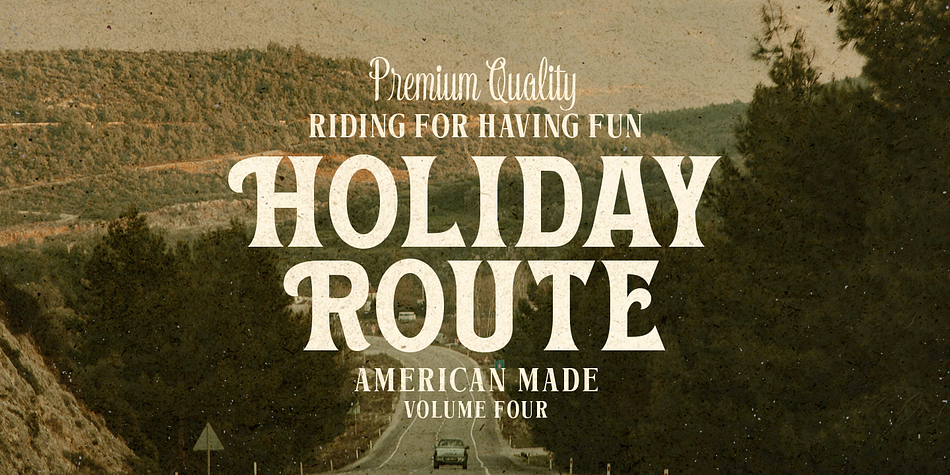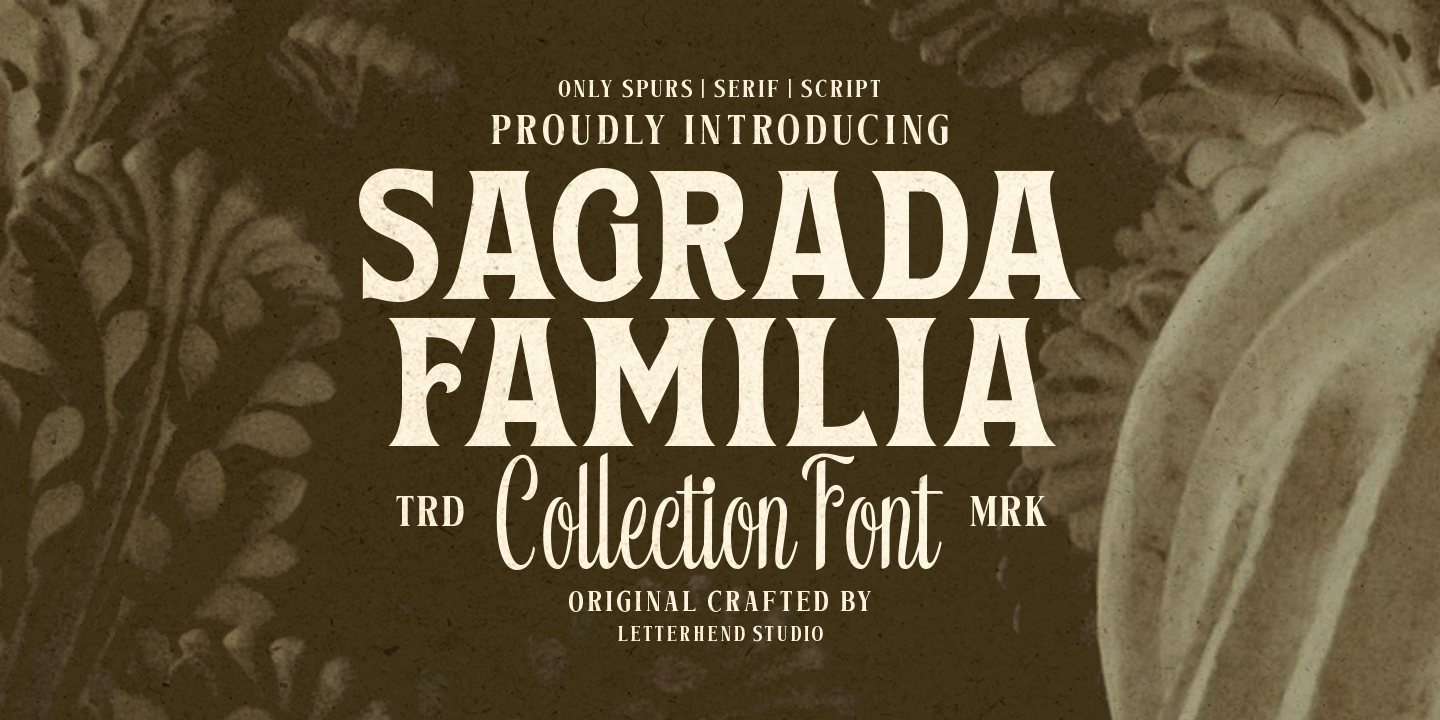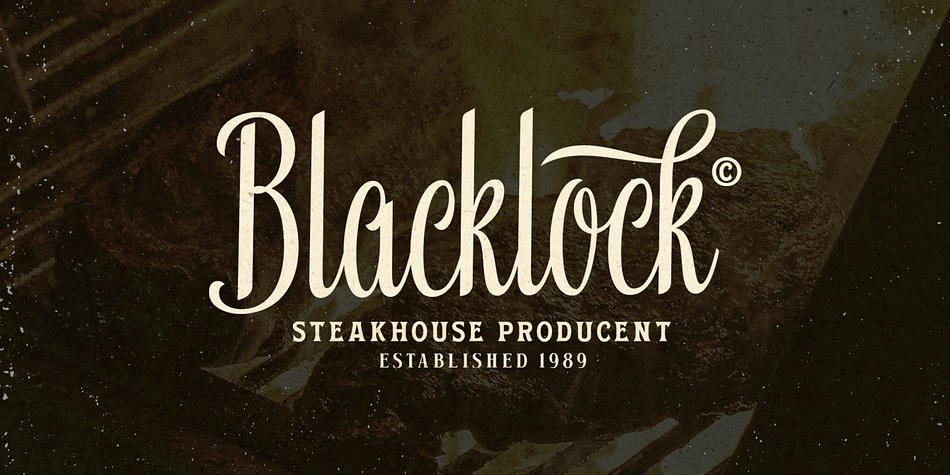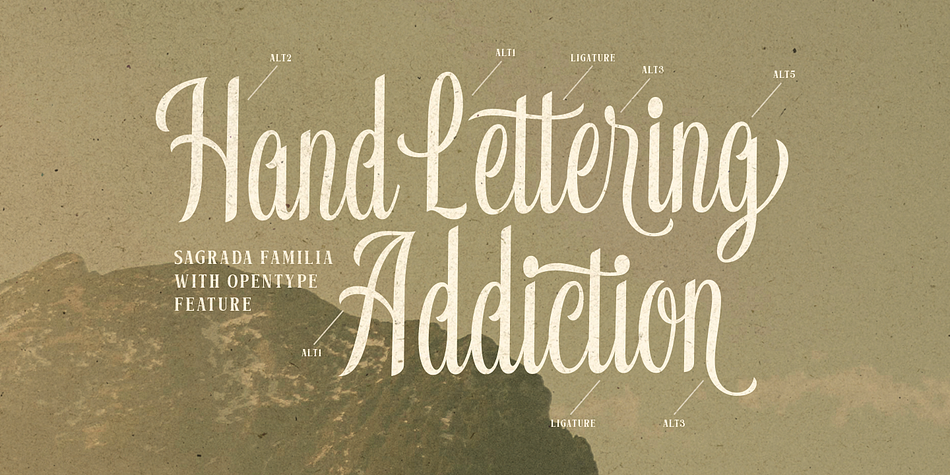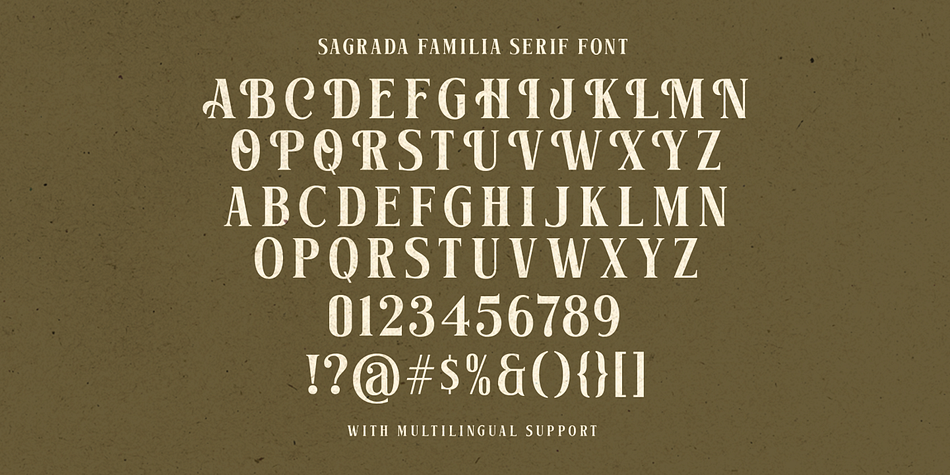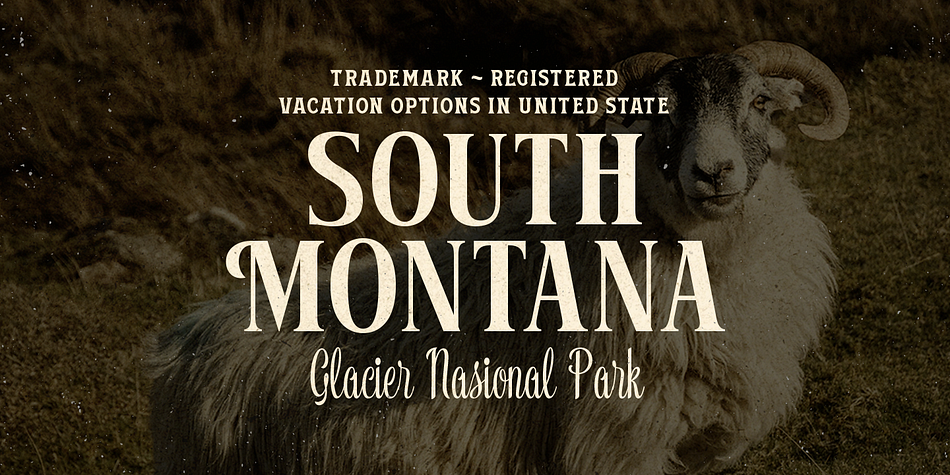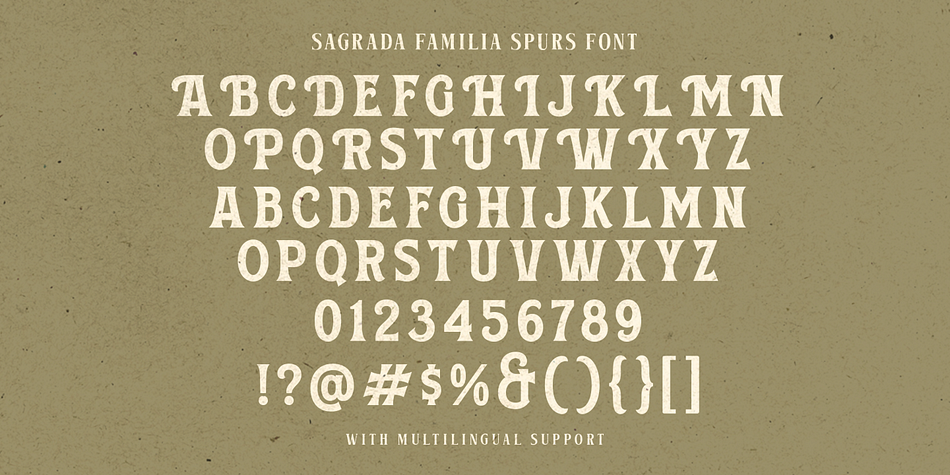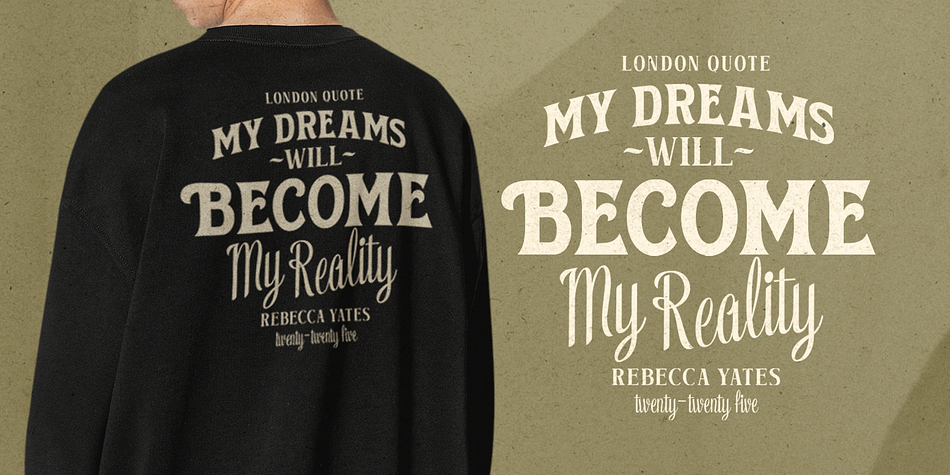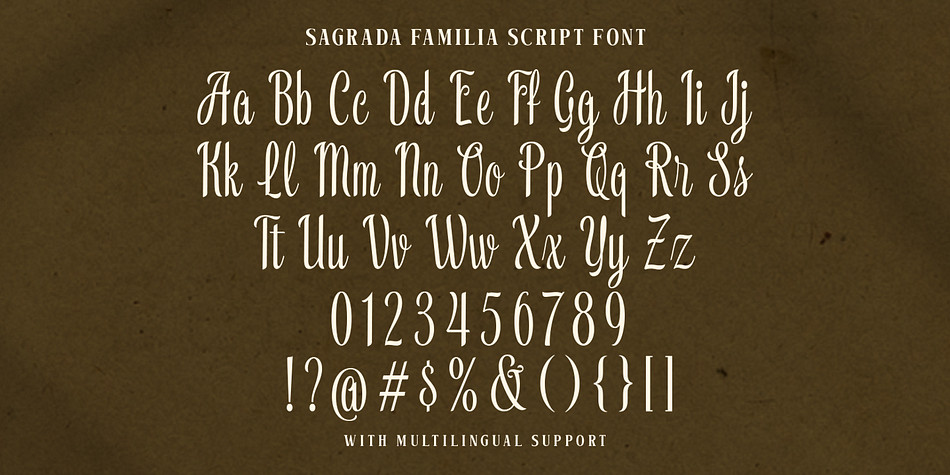
Sagrada Familia
Designed by Hendry Juanda, Sagrada Familia is a script font family. This typeface has three styles and was published by Letterhend Studio.
Sagrada Familia is a vintage-inspired display font collection that combines serif, spurred, and script styles in one elegant package. This font brings a classic and timeless feel with a strong touch of tradition, ideal for branding, logos, packaging, and editorial projects that seek an old-world charm with a refined personality.
- Alternates Character